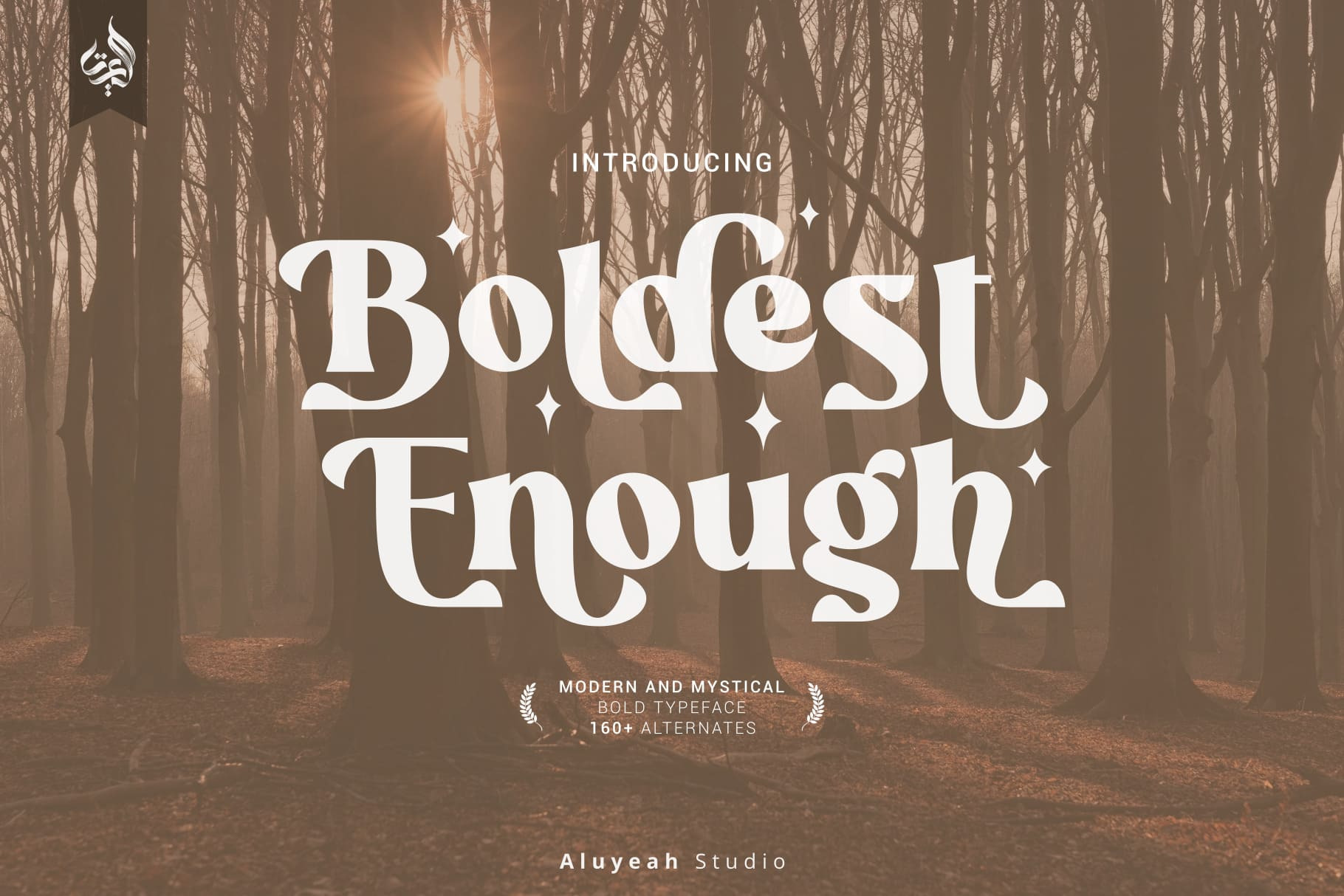
Boldest Enough | Display Font
Boldest Enough, modern and mystical bold display typeface. Inspired by the mystical vibe from animation horror movie for kids. It gives you fear, curiosity, and amazement at the same time. Coming with 160+ stunning and super easy to use alternates.
- Super Easy to Use alternates - It's OpenType support but you can easily call alternates character using special combination like A.2 R.3 h.5 etc so you don't need special software.
To get results like the preview just type B.4ol.9d.2es.2t.2 E.4n.5ough.7